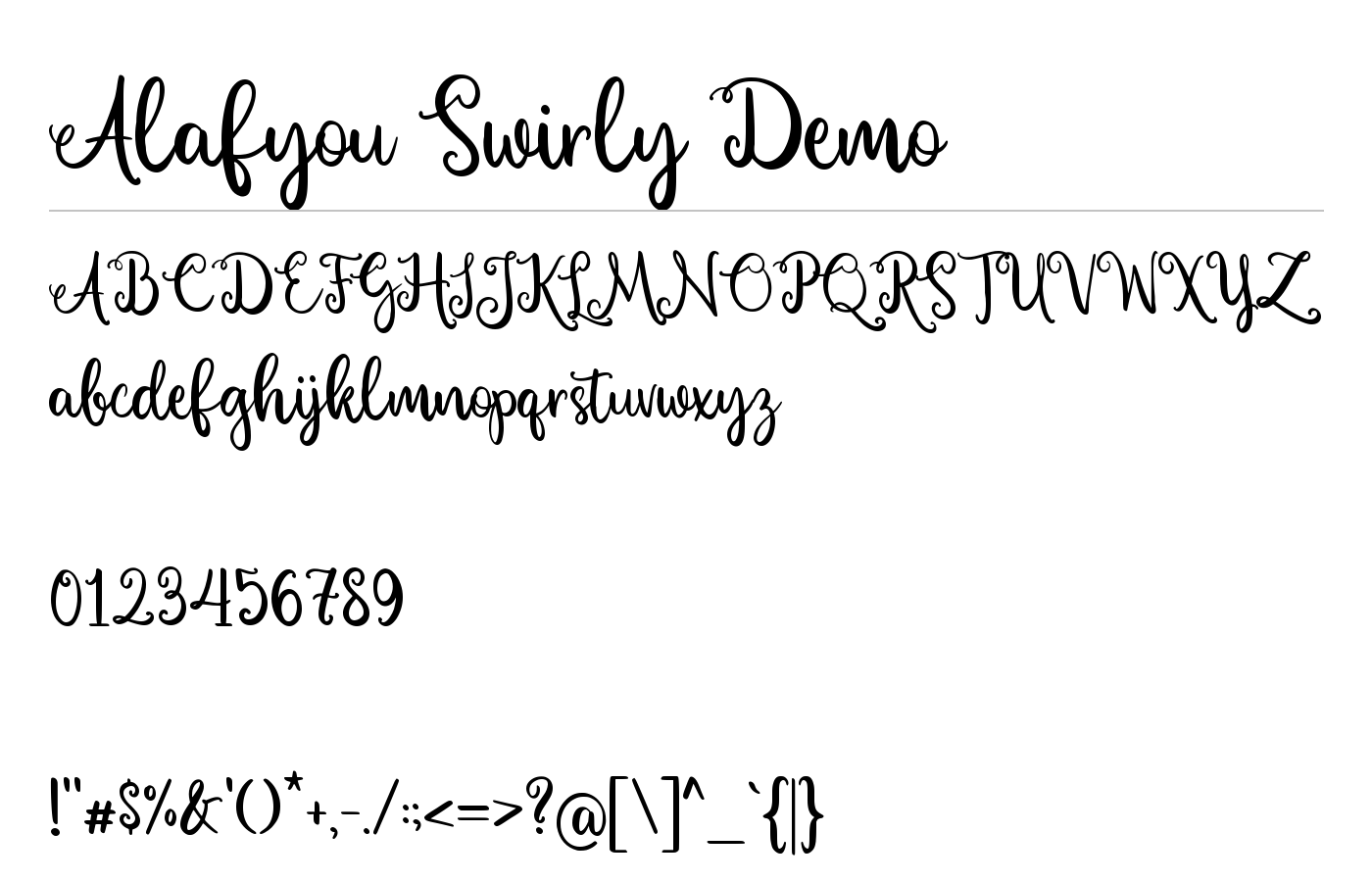
Alafyou Swirly Demo is a playful and elegant script font with delicate, flowing swirls that add a whimsical touch to uppercase letters, while lowercase characters are smooth and moderately tall with a handwritten feel. Its light weight and moderate contrast make it suitable for creative branding, invitations, and decorative headlines where a friendly and artistic style is desired. This font shines in designs that want to evoke charm and personality without sacrificing readability.
Alafyou Swirly Demo Font
About Alafyou Swirly Demo Font